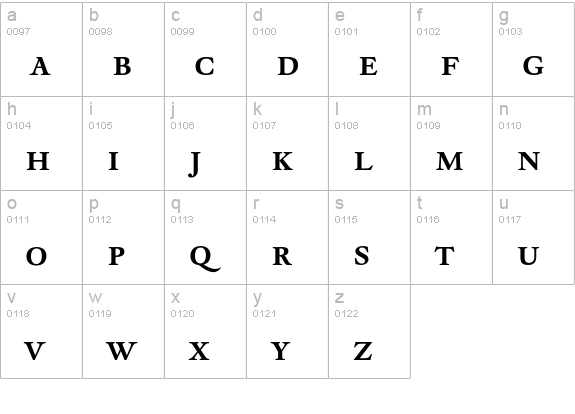
DTLElzevirTCapsMedium Font Details
The DTLElzevirTCapsMedium font is a stylish and versatile typeface that exudes a sense of sophistication and elegance. Its clean lines and classic design make it perfect for a wide range of projects, from branding to editorial design. With its medium weight, this font strikes the perfect balance between boldness and subtlety, making it a great choice for both headings and body text. Best of all, this font is available for free download at FontsMarket.com. You can easily add this beautiful typeface to your collection without any cost, making it a valuable resource for designers and creatives alike. Don't miss out on the opportunity to enhance your projects with the DTLElzevirTCapsMedium font – download it for free today!